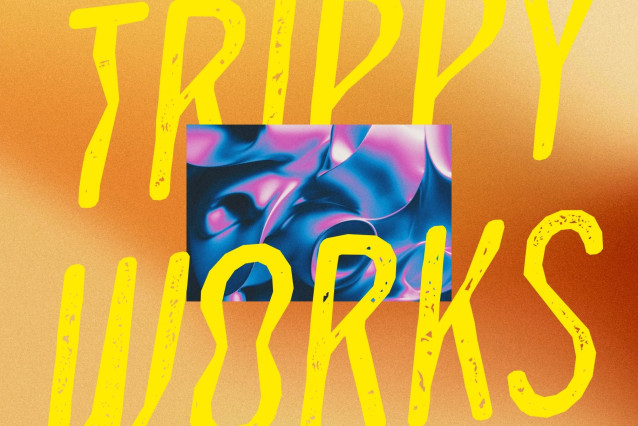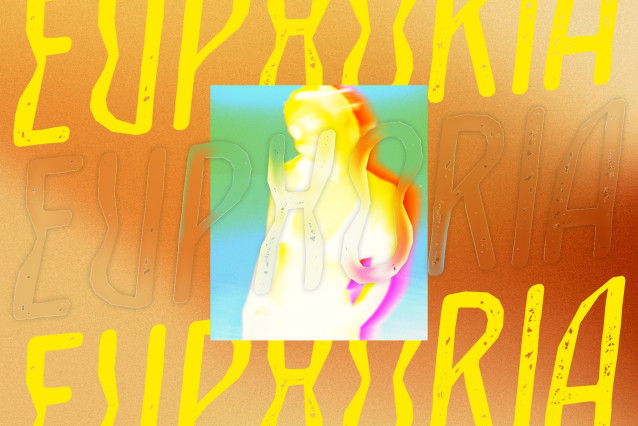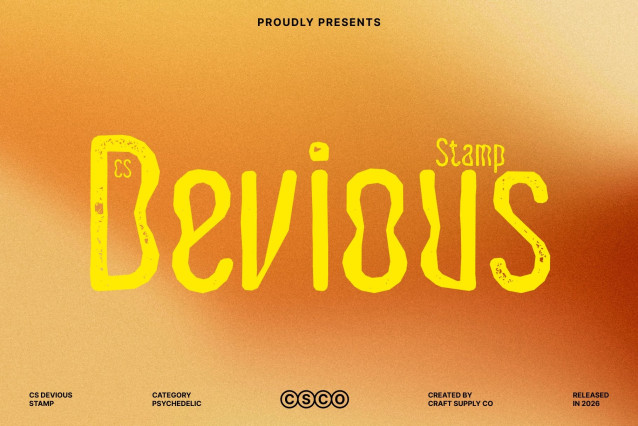
Devious Stamp Font
CS Devious Stamp – Psychedelic Font: Ignite Your Imagination
Modern Psychedelic Display with Funky Flair
This is a modern psychedelic display font filled with curved, distorted letterforms that create a funky and cheerful visual impression. Its unconventional shapes form a bold, eye-catching style that instantly draws attention and sparks curiosity.
Designed for Creative Expression
Perfect for projects centered on creativity and joy, this font shines in music posters, product packaging, merchandise, and contemporary artwork. Its lively personality adapts effortlessly to diverse creative contexts, helping your message connect with audiences in a fun and memorable way.